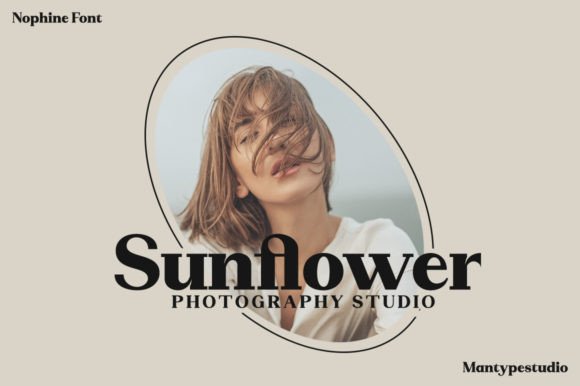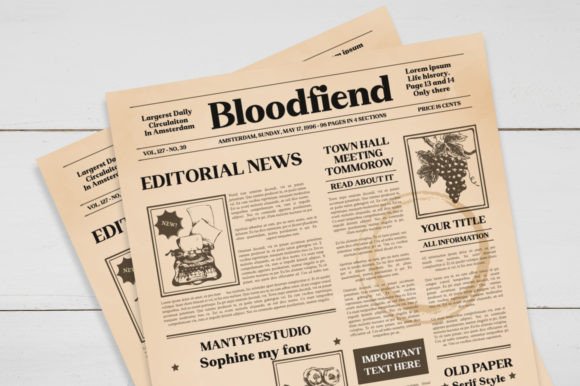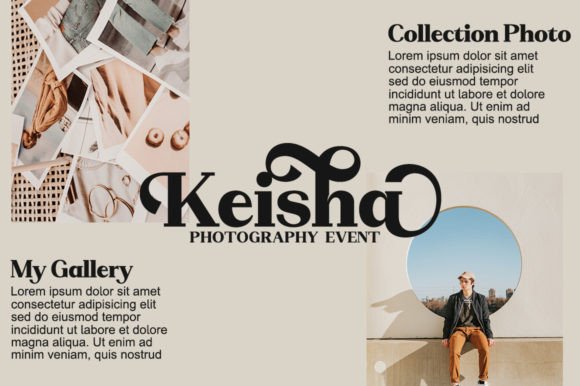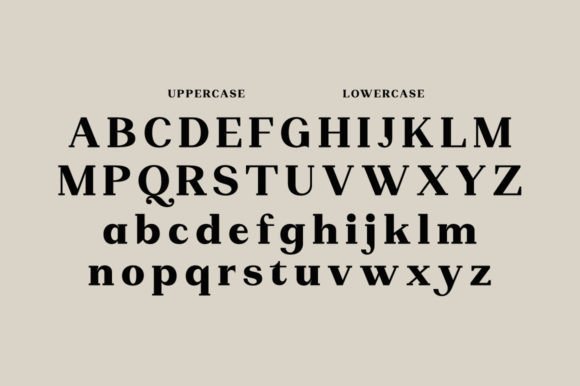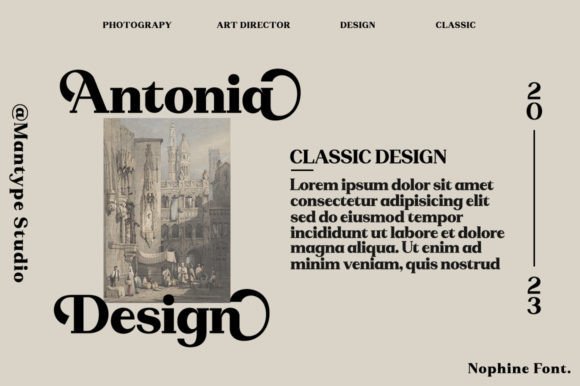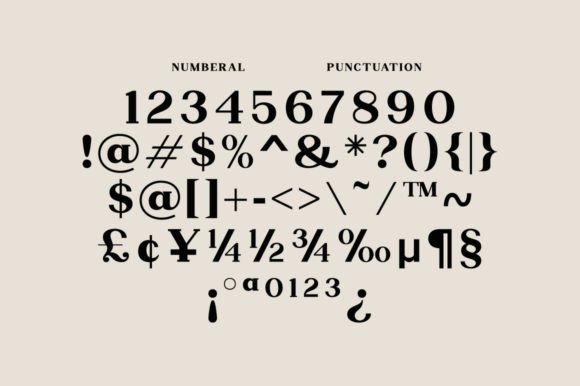
Introduction to Nophine Font
Meet the Nophine Font, a high-quality typeface designed specifically for intensive editorial use. Its versatility and flexibility make it a true multipurpose design tool, perfect for newspapers, magazines, and online publications. With a transparent background and a range of styles, the Nophine Font is a valuable addition to any designer’s toolkit.
Key Features of Nophine Font
- Features a transparent background, providing flexibility for designers to create visually appealing compositions.
- Includes a comprehensive character set, covering a wide range of languages and characters.
- Designed with precision, ensuring crisp and clear typography across different devices and platforms.
Honest Review: Nophine Font
- ✨ The Nophine Font has a unique, modern design that’s perfect for projects where you need a clean and minimalist look.
- ✨ The font is highly customizable, making it easy to adjust to fit your specific design needs.
- ✨ The font is available in a transparent background, which is perfect for designs where you need a seamless look.
Common Use Cases for Nophine Font